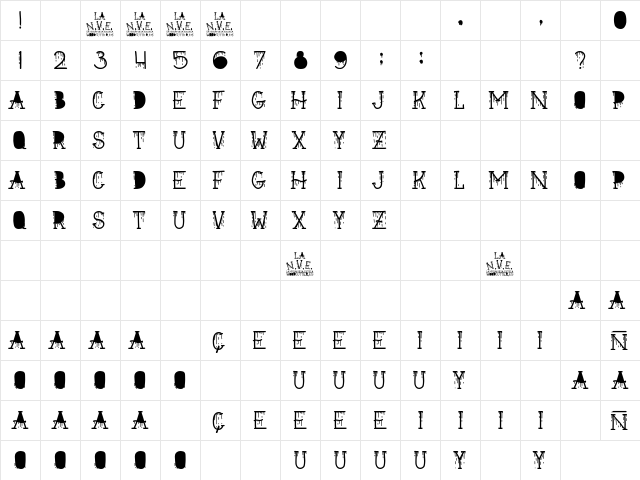
La Nueva Vieja Escuela Regular
| Designer | Jordi Manero Pascual |
Design Context for La Nueva Vieja Escuela Typeface
La Nueva Vieja Escuela is a composed and adaptable typeface that performs quietly and consistently across a wide range of design contexts.